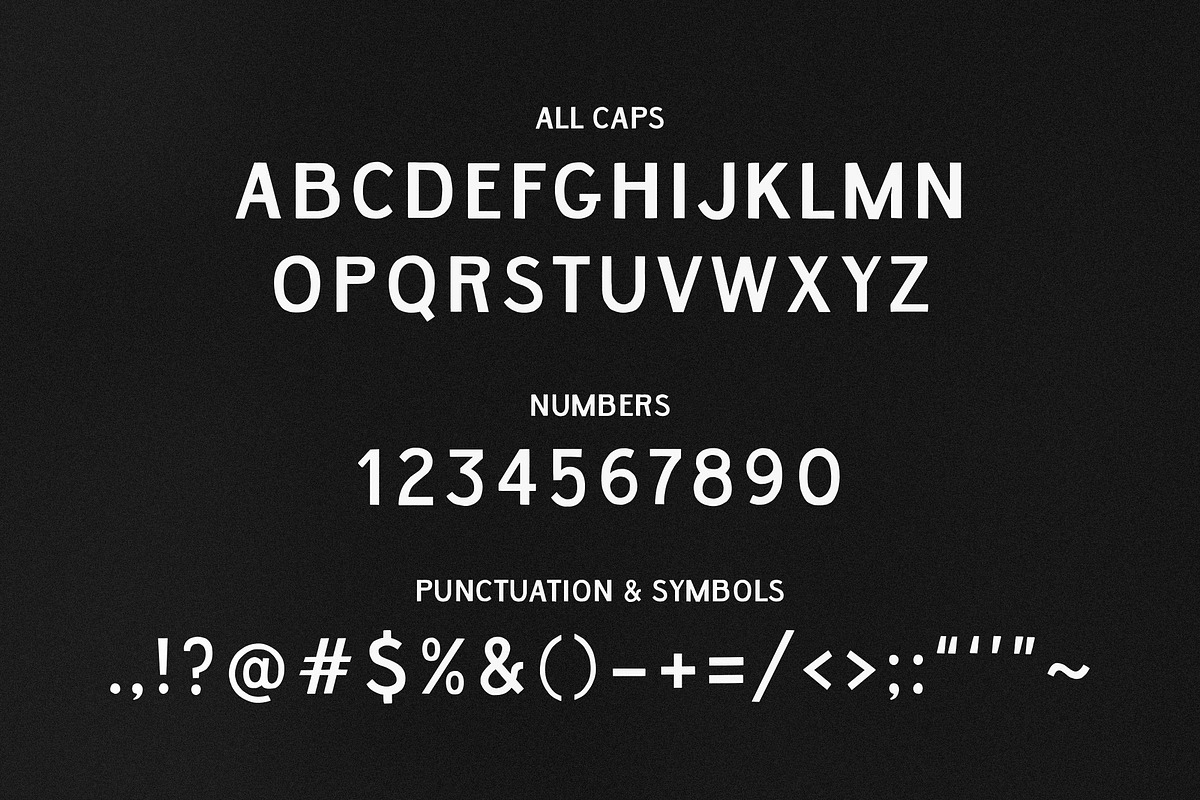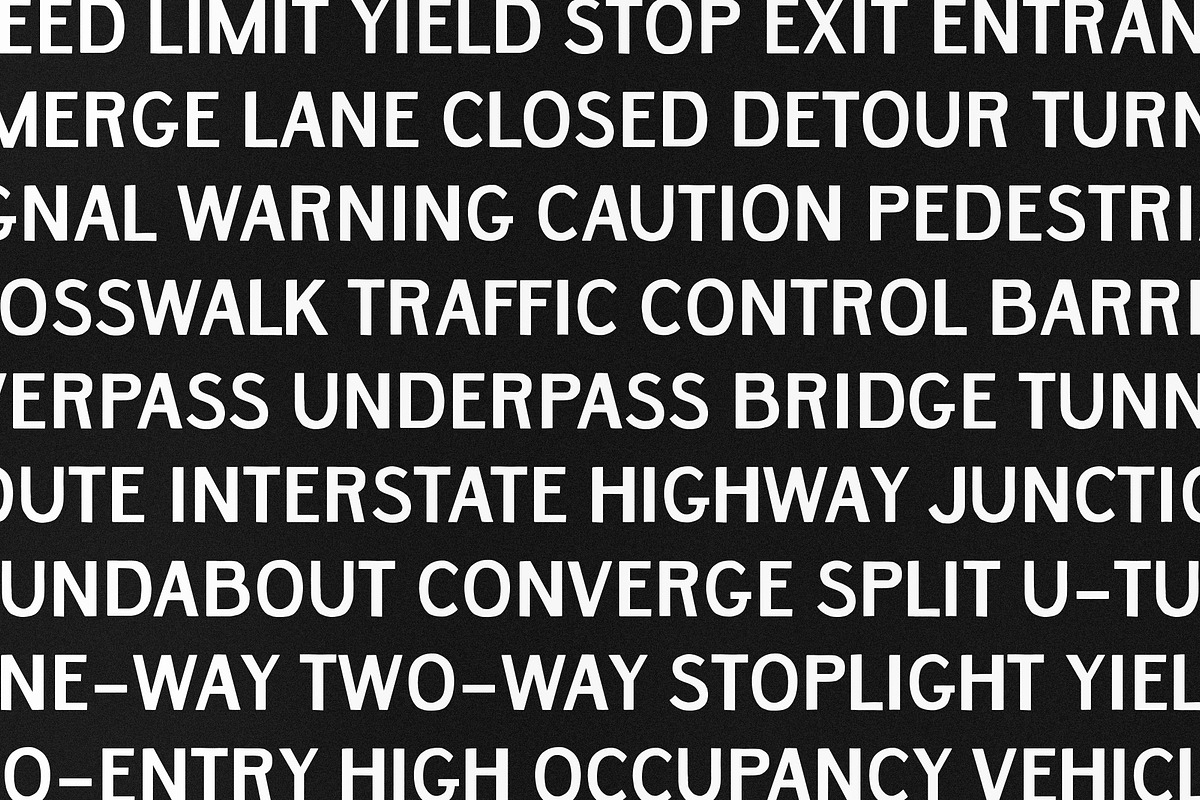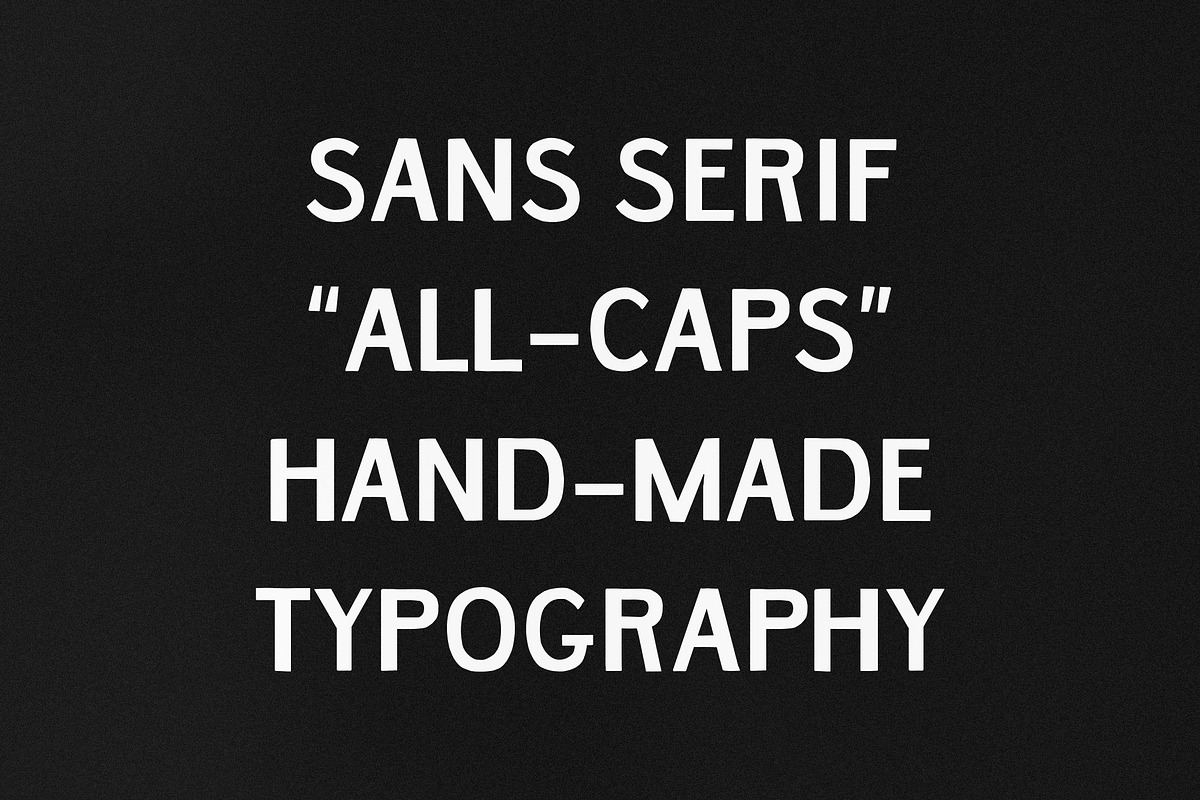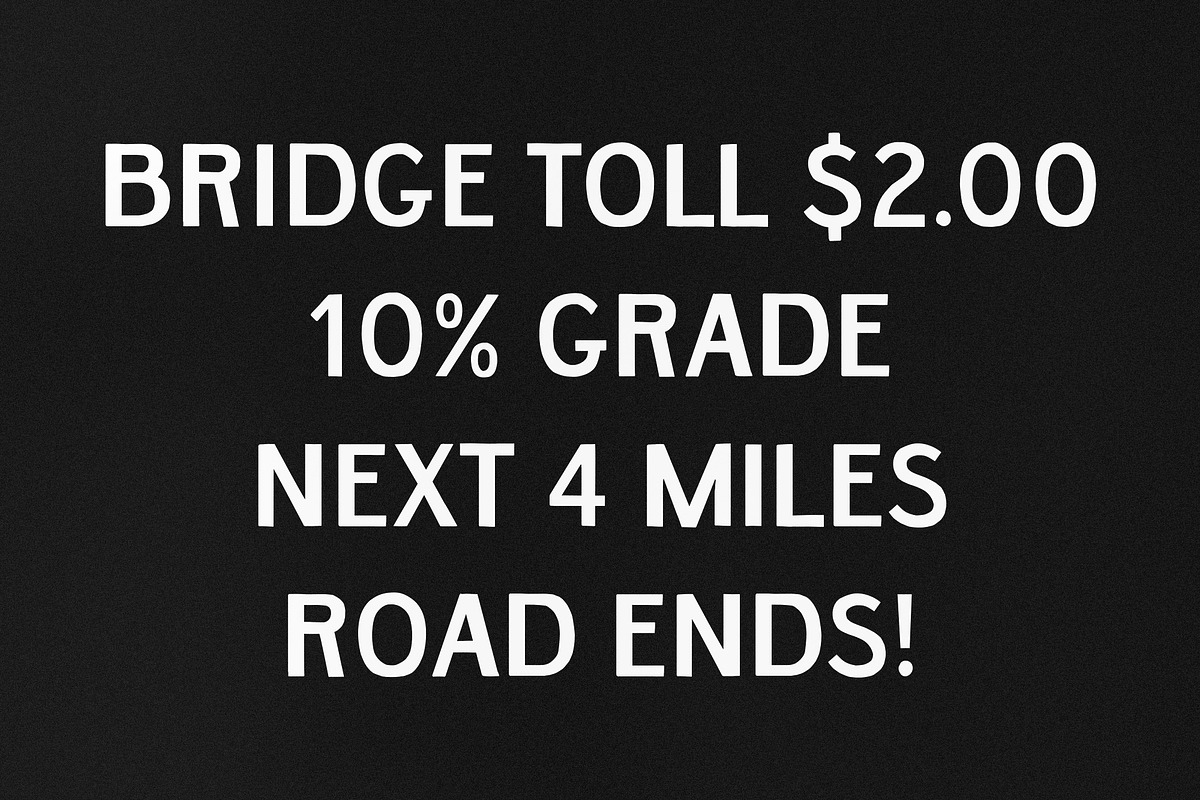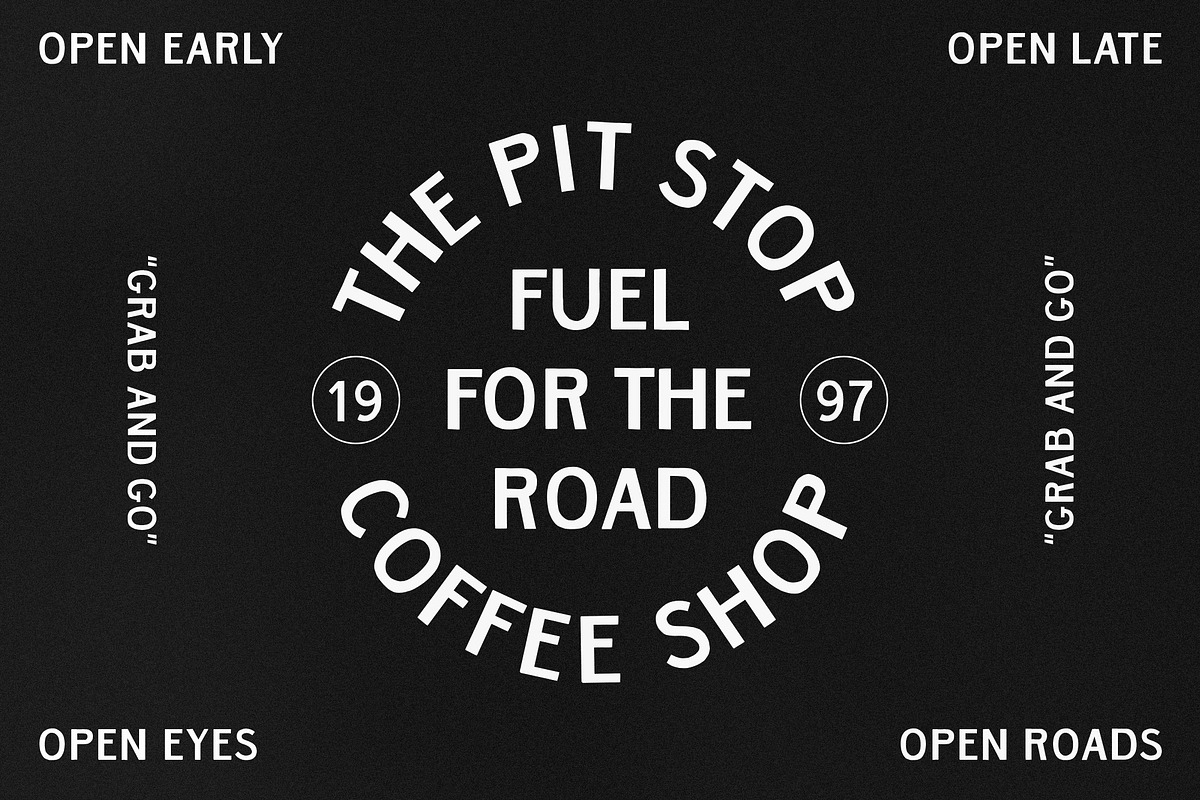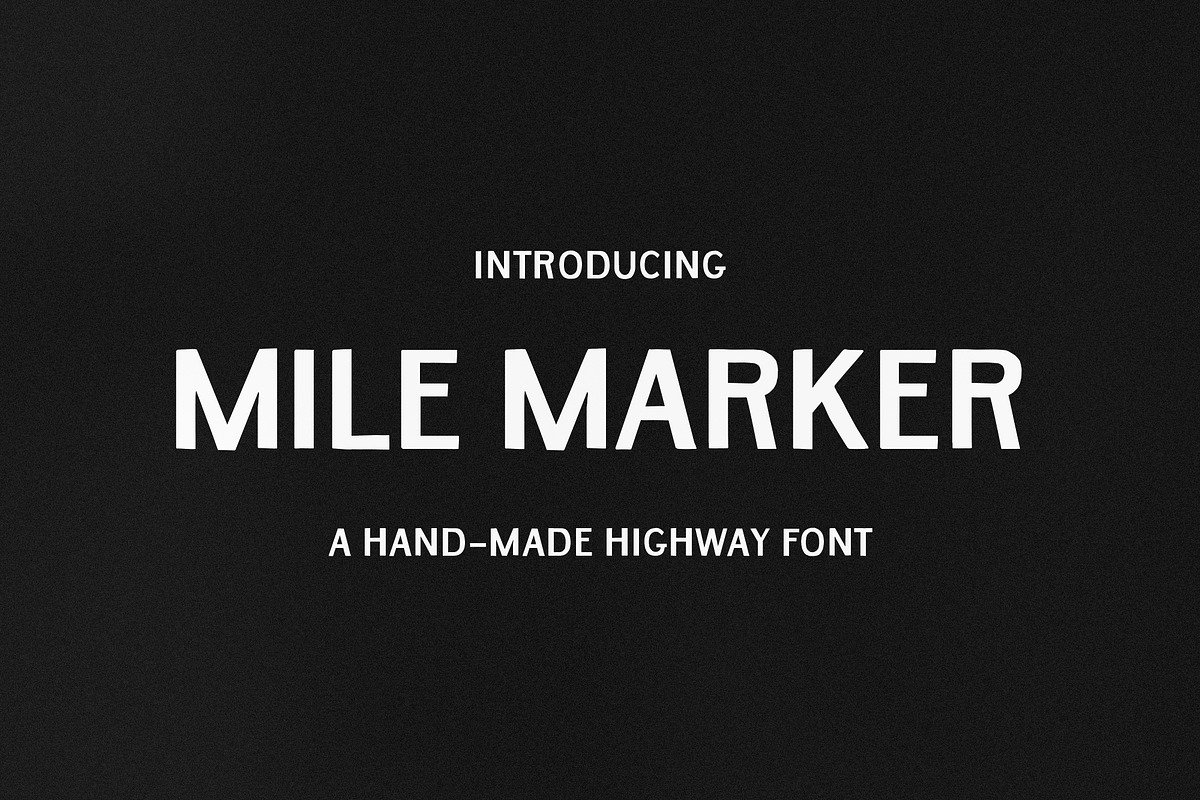
Mile Marker
Mile Marker is a handmade, all-caps font inspired by vintage road sign typography. This font includes an all-caps alphabet, numbers, basic punctuation and symbols. Capturing the nostalgia of road trips of yesteryear, this font adds a sense of quirk and imperfection to breathe life into your next project.